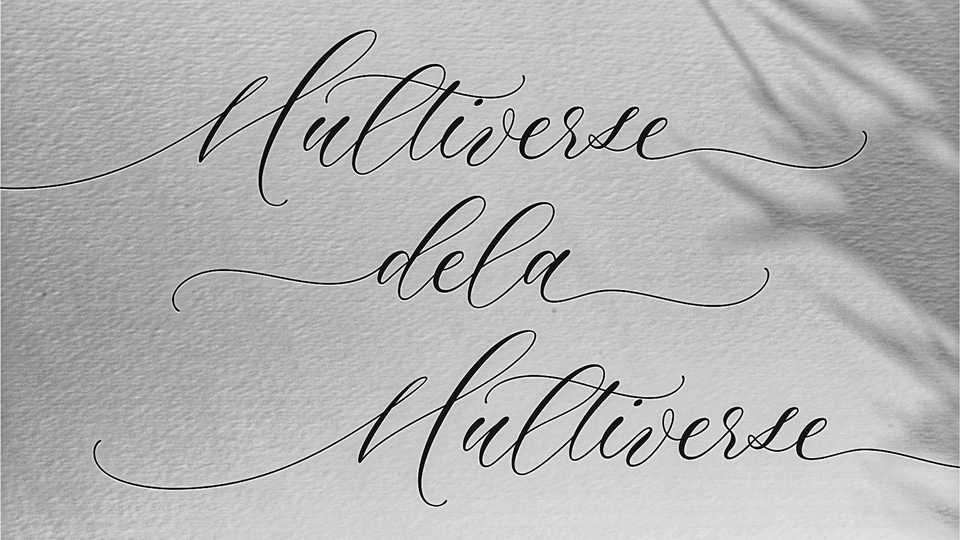
Multiverse Luxurious Script Font › Fontesk
Download Multiverse font, an authentic and luxurious script that is dynamic with a hand-drawn stroke. Multiverse is full of life and movement which will add a modern sensibility to your graphic designs.